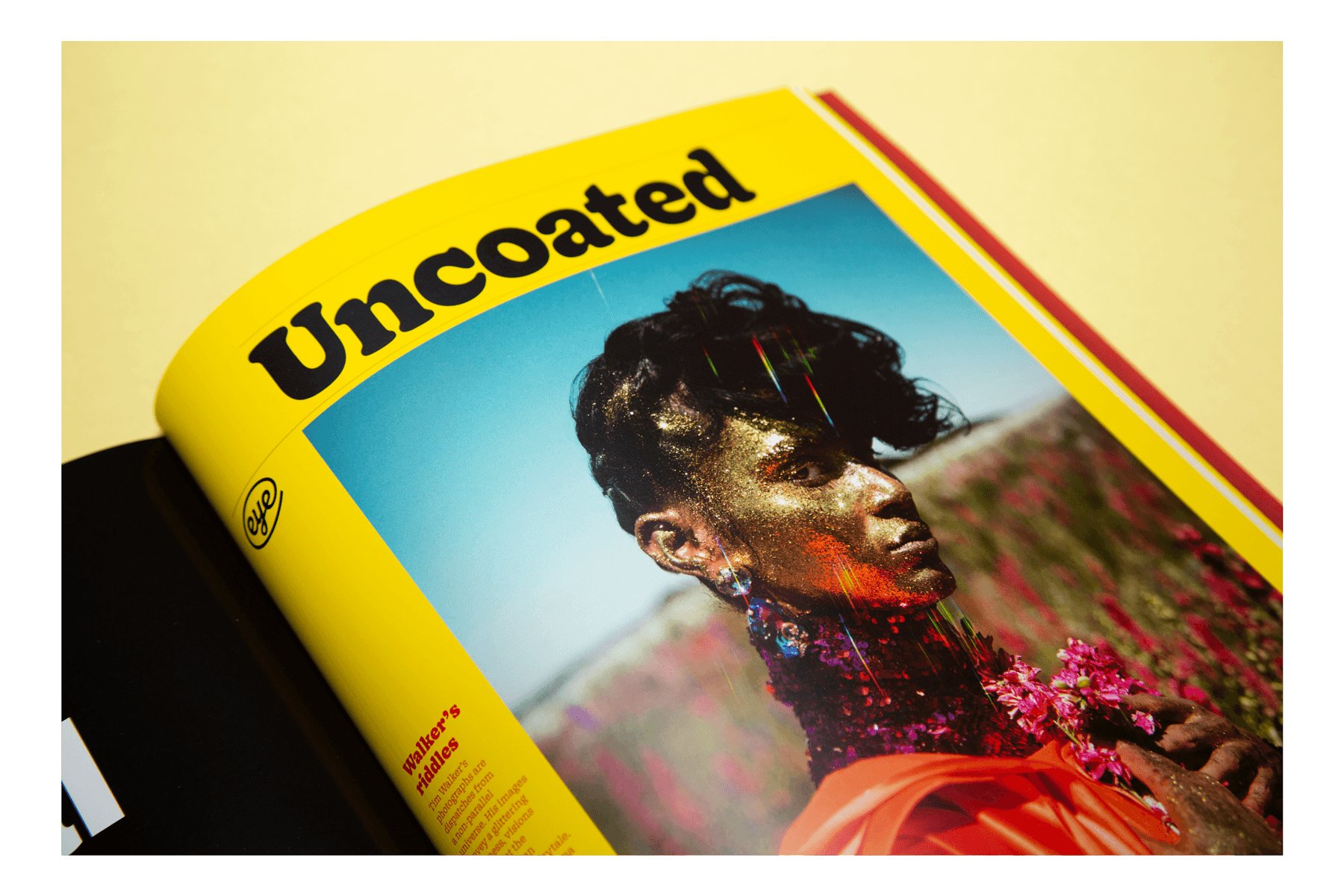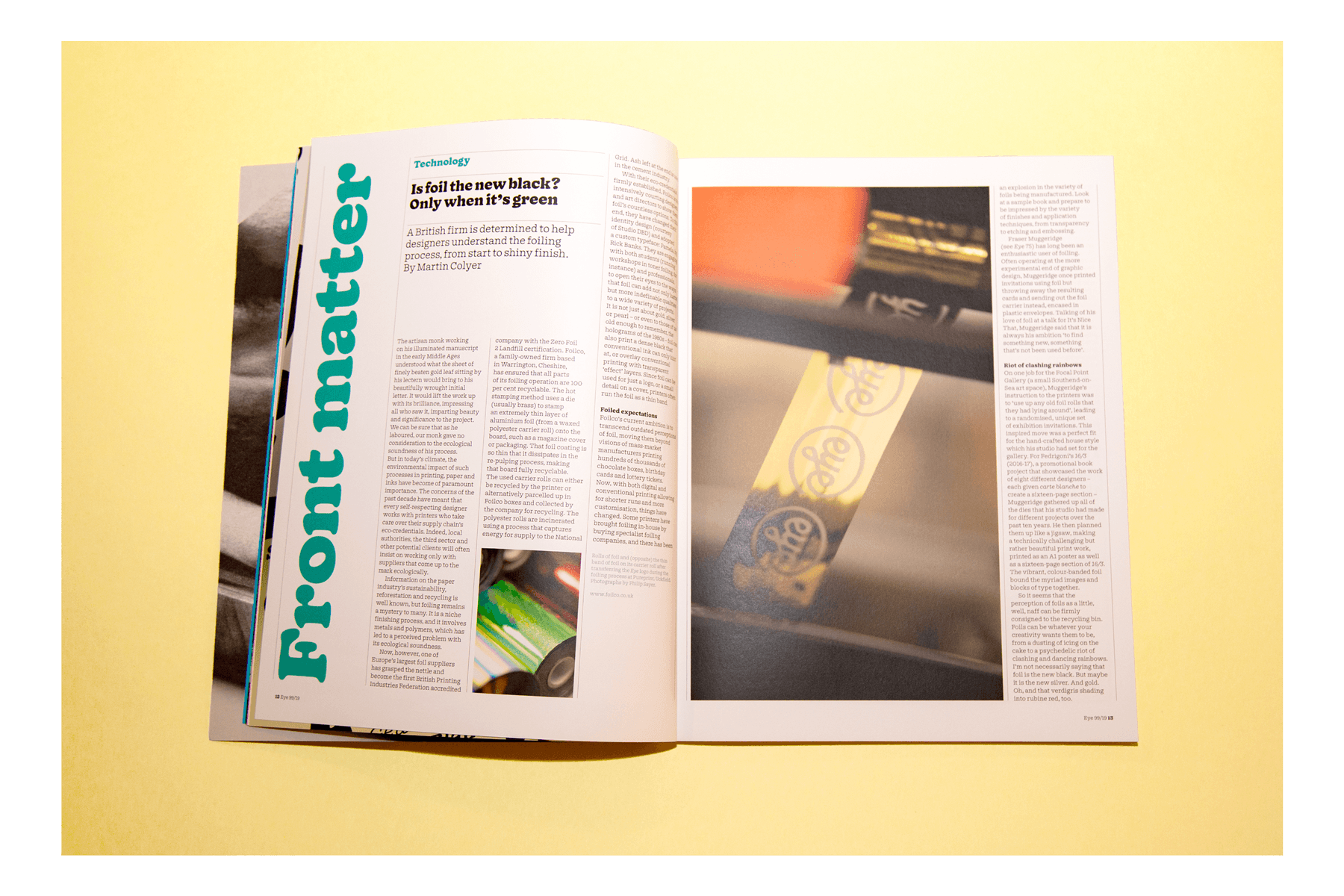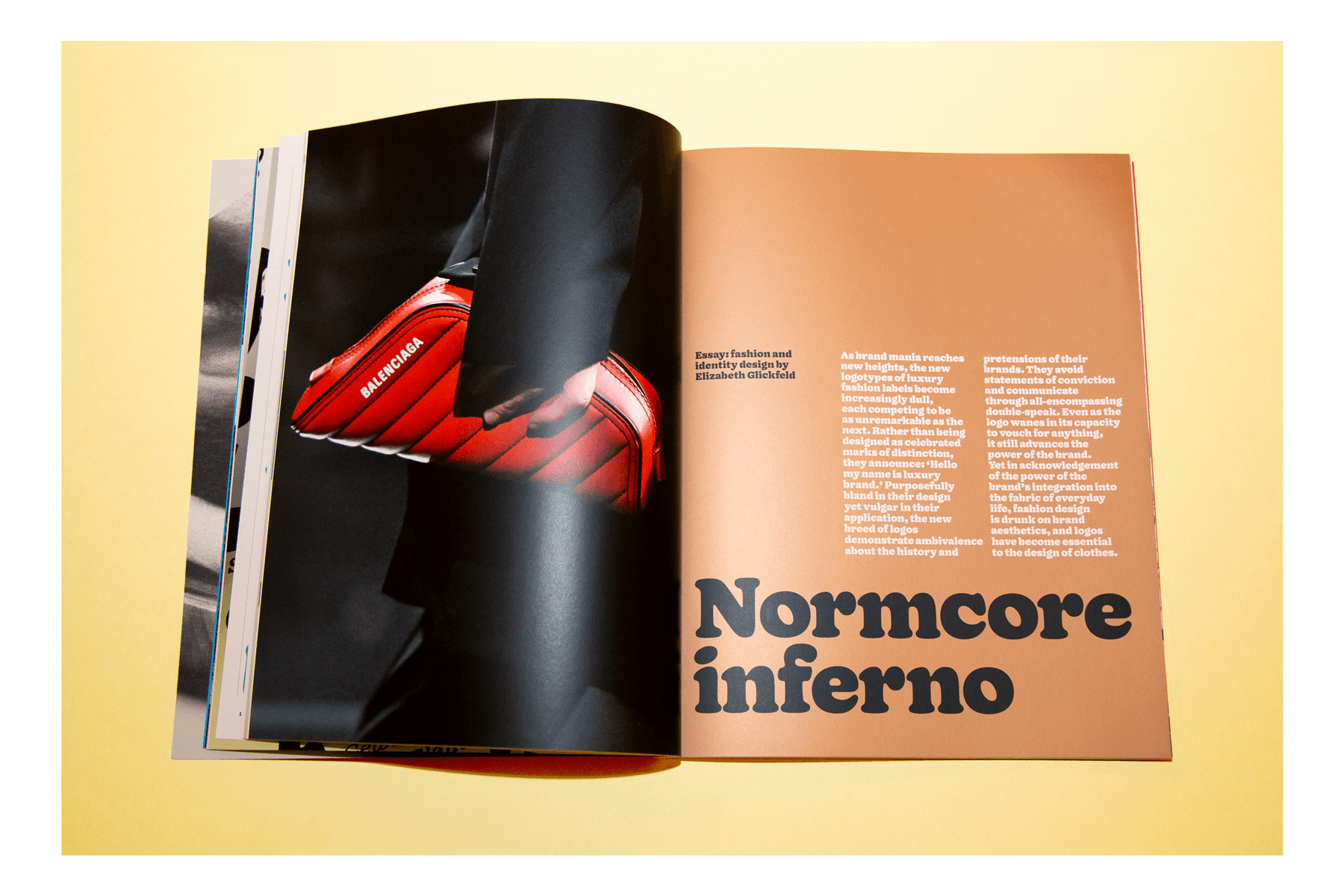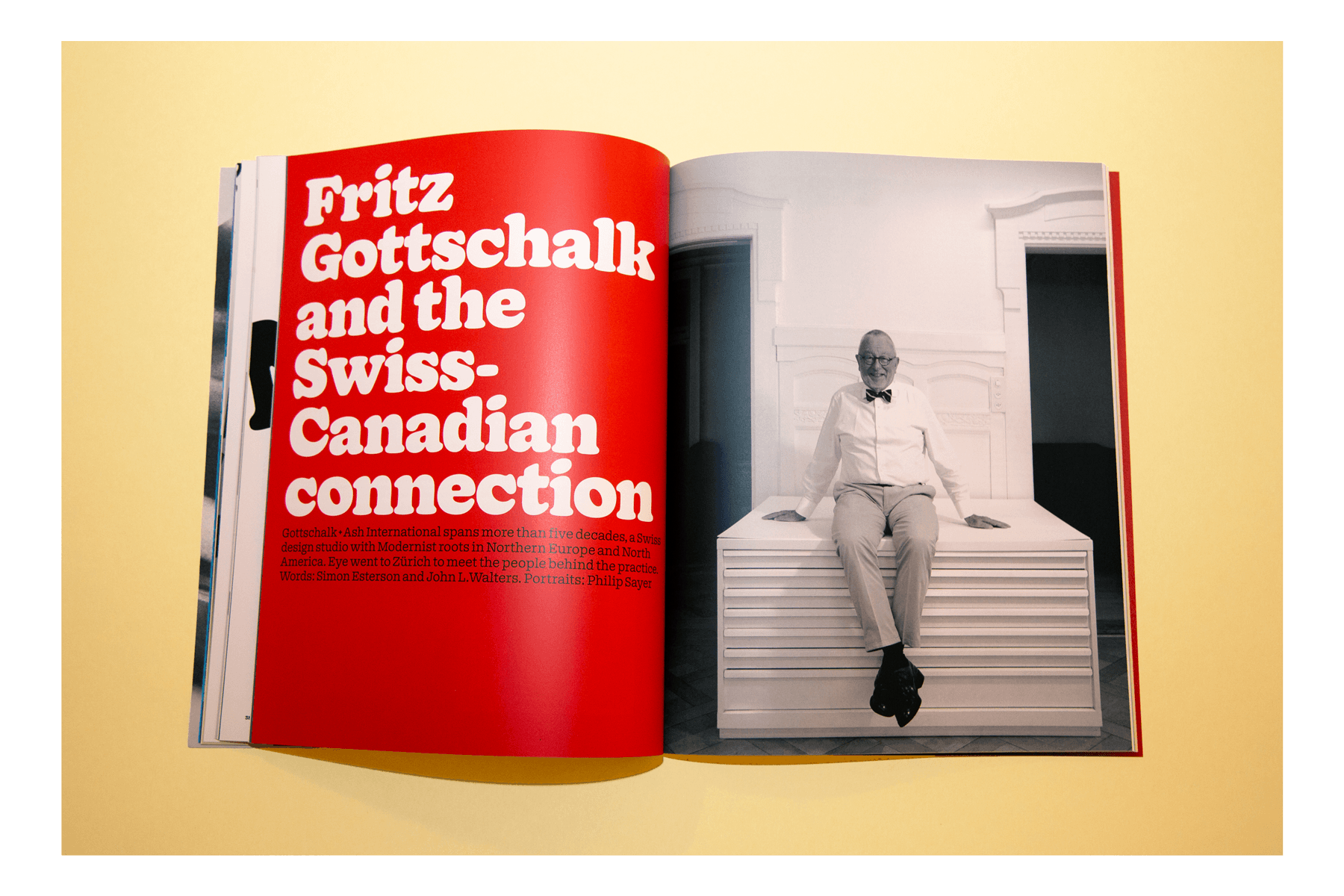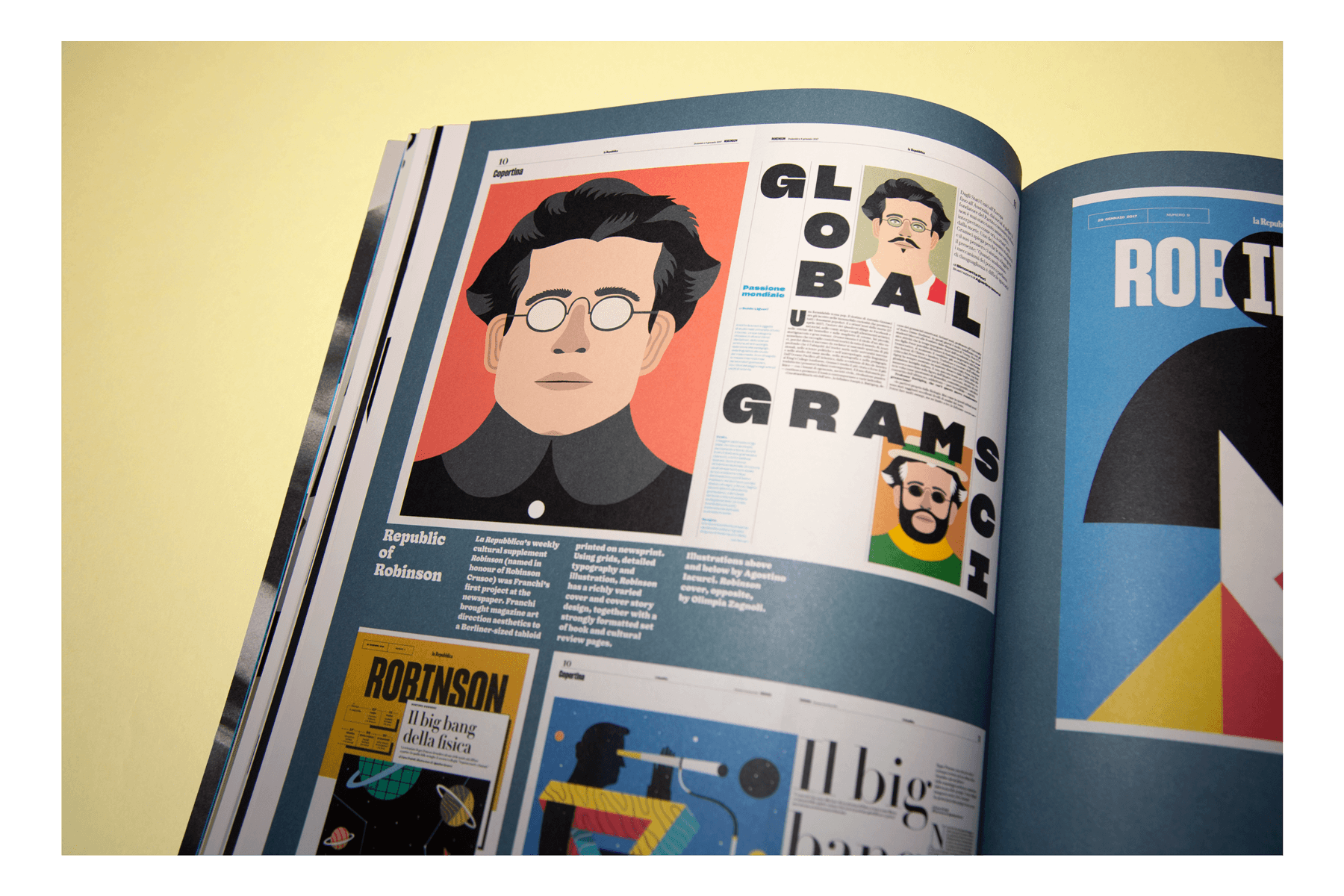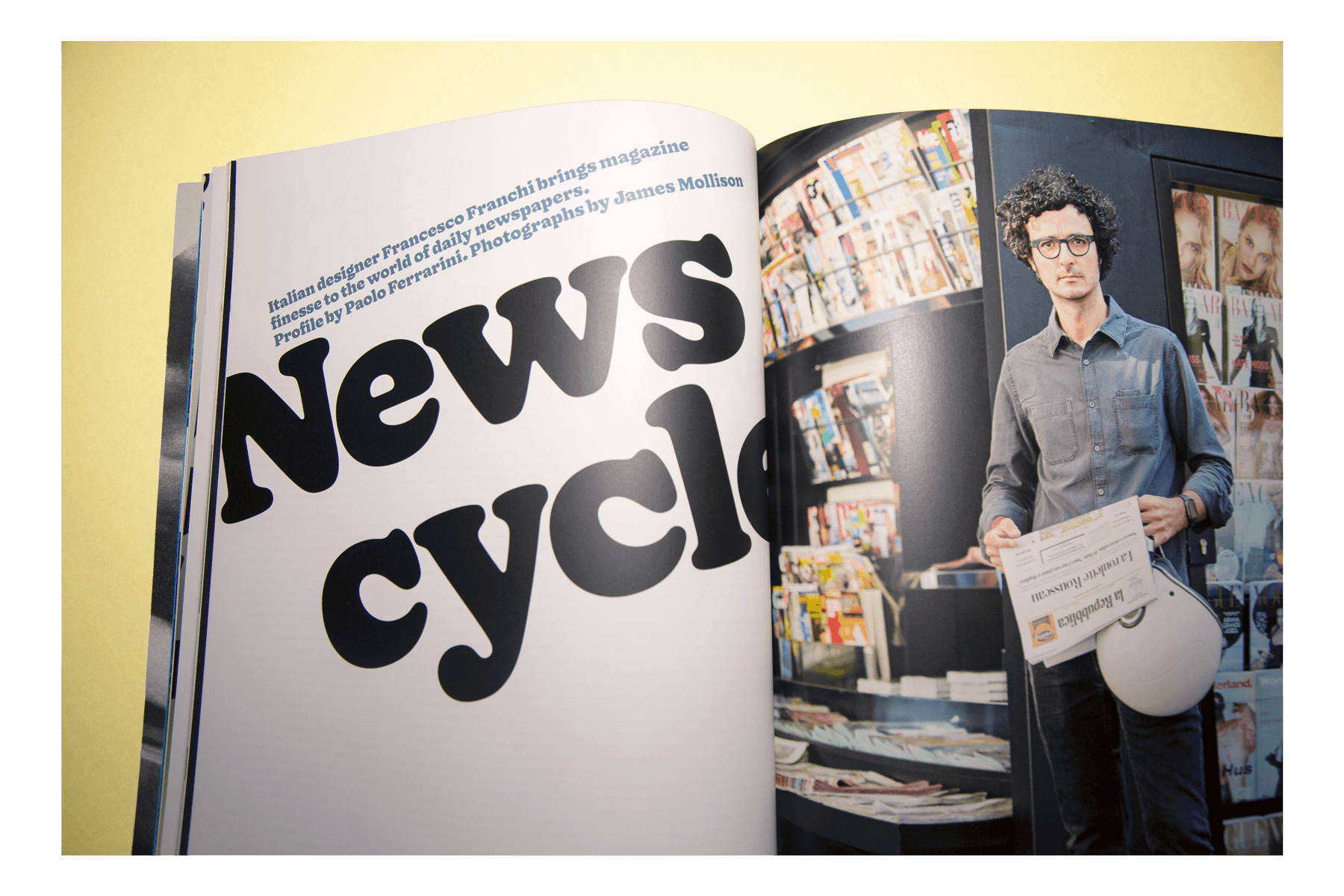
Eye Magazine is an international magazine based in London that has published critical and informed writing on graphic design and visual culture since 1990. For each issue, the Eye creative team selects a guest typeface as their primary typeface. Issue No. 99, vol. 25 dives into the ecology of graphic design and business, and is set completely in the full range of our typeface, Doyle.
After Art Director Simon Esterson, had come across Doyle, his team reached out to us to get a copy of the typeface. Once taking Doyle on a test drive in the layouts, Esterson and his team discovered that Doyle proved extremely versatile and reliable — both as a display typeface for headlines in the darker weights, and at smaller sizes for body copy and captions in the lighter weight. The darkest weight of Doyle with round, plump serifs, was an exercise in drawing the iconic Cooper Black from memory, while the lightest end of the spectrum takes on a slab-serif style reminiscent of ITC American Typewriter.
We got a chance to hear from Art Editor Holly Catford who mentioned:
“[Doyle]’s got so much character. We’ve set it big and bold for Francesco Franchi and Gottschalk + Ash. But we’ve also been able to use it in a restrained, systematic way for the Front Matter and Reviews sections. I love that it’s still got all the fun of Cooper Black, but it’s so usable.”
Doyle’s personality transforms drastically across the spectrum, but it is this playful tension — between jovial amorphousness and rational typographic structure — that makes the family so versatile.